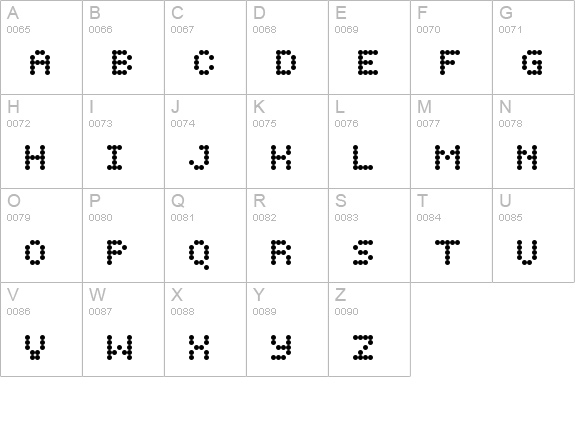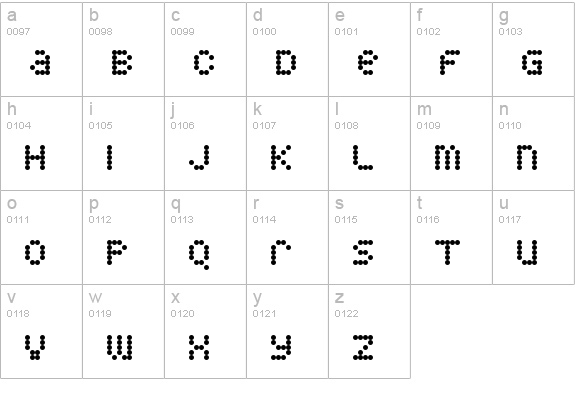
Quarky Font Details
Introducing Quarky, a charming and versatile font that will add a touch of whimsy to your designs. With its playful curves and quirky details, Quarky is perfect for projects that need a fun and lighthearted feel. Whether you're designing a children's book, a party invitation, or a logo for a creative brand, Quarky is sure to make a bold statement. What makes Quarky even more amazing is that it is completely free! Yes, you heard it right - this stunning font can be yours without spending a penny. Thanks to its creators' generosity, Quarky is freely available to download at FontsMarket.com. So, why wait? Go ahead and unleash your creativity with Quarky, knowing that you're getting a high-quality font at no cost. But don't let its price fool you - Quarky is a font that delivers in terms of both style and functionality. Its clean and legible characters ensure readability, while its unique and playful design adds a touch of personality to any project. Plus, with a wide range of alternate characters and ligatures, you can truly customize your text and make it stand out. In addition to its aesthetic appeal, Quarky is also incredibly versatile. It works seamlessly across various design applications, from digital projects to print materials. Whether you're designing a website, creating social media graphics, or crafting a poster, Quarky will adapt and enhance your work. So, say goodbye to boring and predictable fonts and embrace the charm of Quarky. With its free availability and remarkable design, this font is a must-have for any designer looking to add a dash of fun and creativity to their projects. Download Quarky today at FontsMarket.com and discover the endless possibilities it offers.